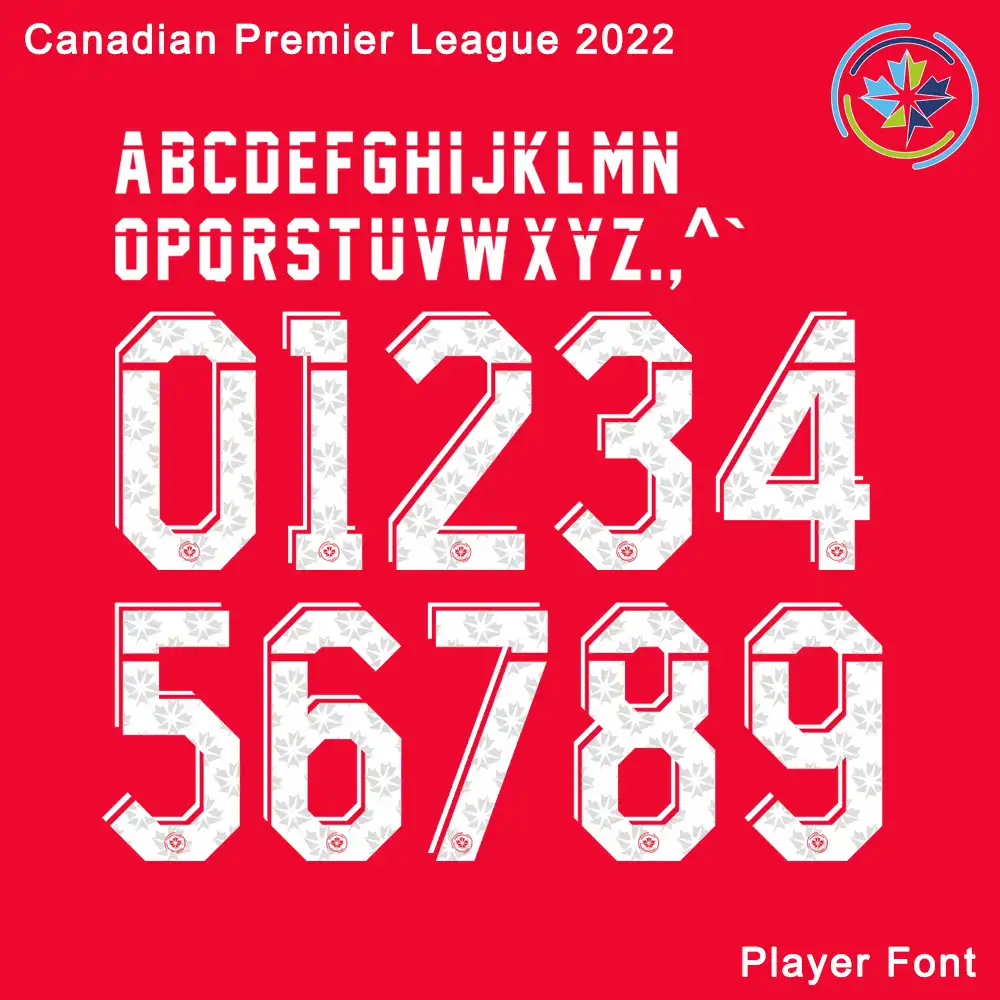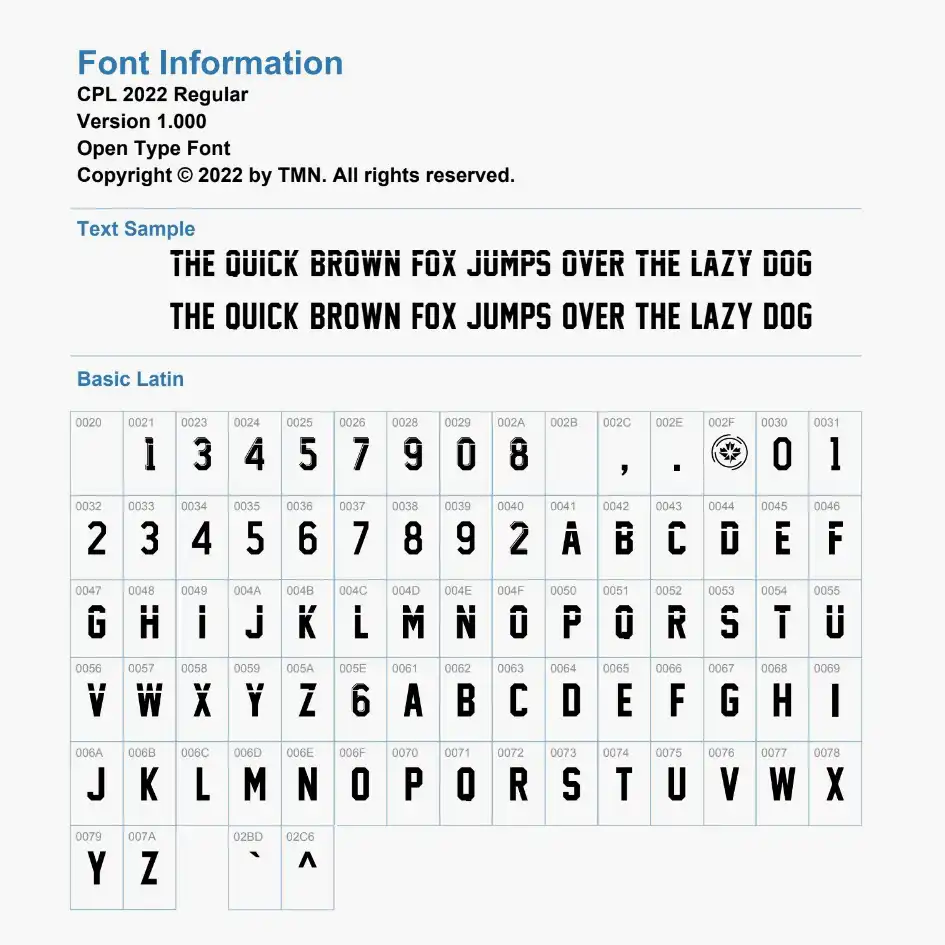
Bring authentic Canadian soccer identity to your gear with the CPL 2022-2023 Kit Font.
Launched in 2022, this font was designed to unify the league from coast to coast. Its aesthetic is inspired by the iconic 1985 Canadian Menβs National Team, blended with a modern “49th parallel” line that runs through every letter and number. Whether you are a fan of Forge FC, Pacific FC, or Atletico Ottawa, this font is the official standard for the 2022 and 2023 seasons.
Professional Features:
League-Wide Standard: Used by all Canadian Premier League clubs for namesets and numbers.
Precision Design: Features the unique horizontal strike-through and the classic block-collegiate structure.